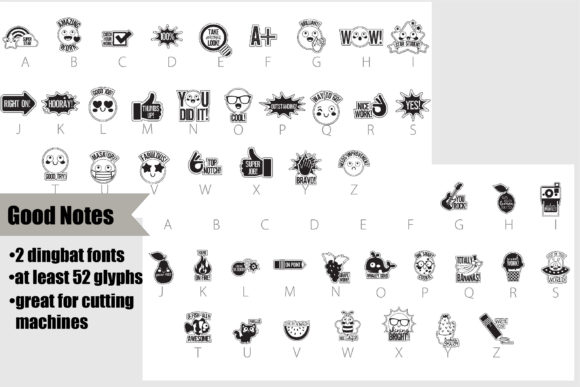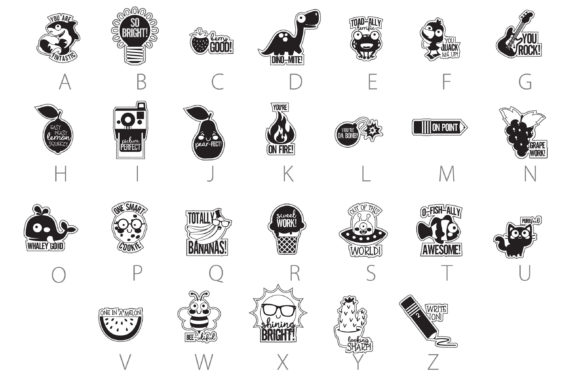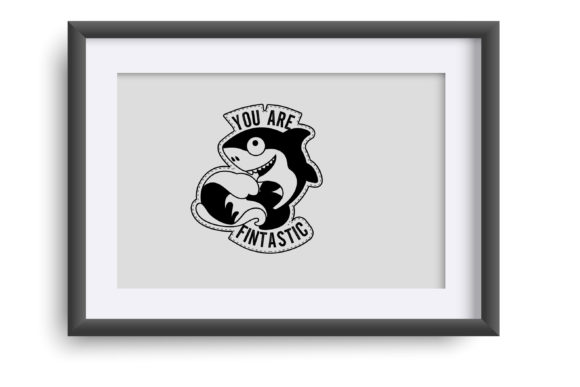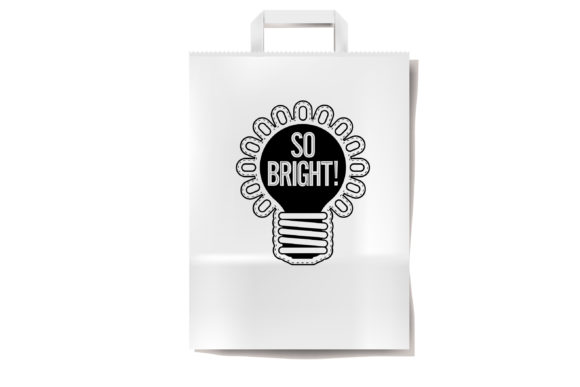
Good Notes Font
About Good Notes Font
The Good Notes bundle offers two distinct dingbat fonts that can enhance your projects with positive and uplifting imagery as well as playful puns. With multiple glyphs available in each font, they are perfect for use with vinyl and cutting machines, allowing you to bring these designs to life on various surfaces.
The first dingbat font in the bundle features positive and uplifting imagery associated with good school work. These glyphs can include symbols like books, pencils, graduation caps, stars, and other educational elements. They are designed to inspire motivation, positivity, and academic success. Whether you’re creating school-related projects, educational materials, or personalized stationery, these uplifting glyphs will add a touch of encouragement and cheerfulness to your designs.
The second dingbat font in the bundle focuses on puns. These glyphs incorporate playful and humorous elements that can include wordplay, visual puns, or clever illustrations. They are perfect for adding a touch of lightheartedness and whimsy to your designs. Whether you’re creating greeting cards, posters, or any other project that benefits from a touch of humor, these pun-inspired glyphs will bring a smile to your audience’s faces.
Both fonts in the Good Notes bundle are optimized for use with vinyl and cutting machines, ensuring clean and precise cuts for your designs. This makes them ideal for creating vinyl decals, stickers, classroom decorations, or any other projects where you want to showcase positive messages or add a playful twist.
When using these dingbat fonts, consider the context, scale, and combination of the glyphs to create visually appealing compositions. Experiment with different colors, textures, and layering techniques to make your designs stand out. Whether you’re working on school-related projects, crafts, or personal artwork, these fonts offer a range of options to express your creativity and add a positive touch to your creations.
In summary, the Good Notes bundle offers two dingbat fonts that bring positive and playful elements to your designs. With uplifting school-related imagery and pun-inspired glyphs, these fonts allow you to create projects that are motivating, cheerful, and humorous. Whether you’re using vinyl, cutting machines, or any other medium, the Good Notes bundle is a valuable resource to add personality and positivity to your creative endeavors.